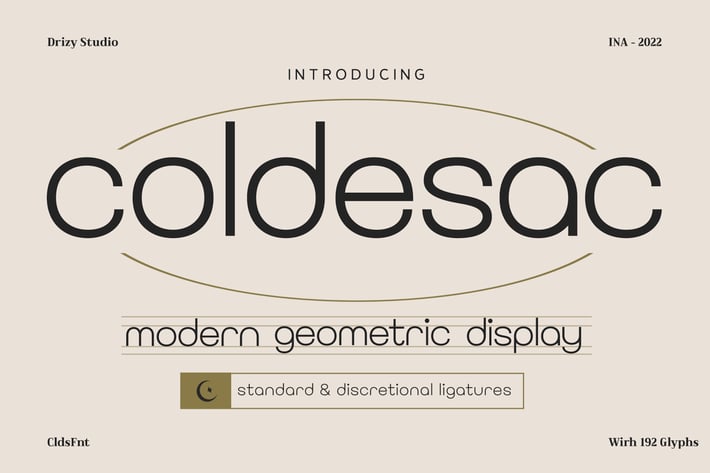
Coldesac - Modern Geometric Font
Coldesac is a Modern Geometric Font from Drizy Studio. Offering all the styles you need for your projects.
Coldesac features:
Lowercase Only
Punctuation & Numbers
Ligatures